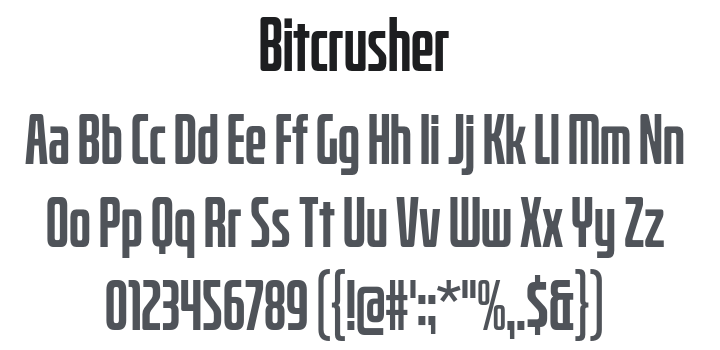
Bitcrusher Font
About Bitcrusher
Bitcrusher is a hyper-condensed sans serif built for precision and control in tight spaces. Its engineered geometry balances discipline with subtle softness, keeping text legible even at extreme compression. Five weights across four widths; Condensed, Compressed, Crammed, and Crushed; maintain consistent proportions, allowing seamless scaling and spacing adjustments. Vertical strokes replace diagonals in letters like M and W to preserve clarity under pressure. Supporting Latin, Greek, Cyrillic, and Vietnamese scripts, Bitcrusher brings global versatility to bold headlines, compact layouts, and experimental typography. It’s space efficiency refined into high-performance design.